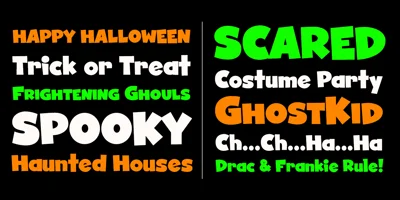
GhostKid AOE Font is perfect for spooky design projects including haunted children's attractions, Halloween family events, kid-friendly ghost tours, supernatural children's entertainment, spooky theme parks, horror-lite gaming interfaces, ghostly children's book illustrations, and playfully scary marketing campaigns. This eerie typeface works perfectly for family-friendly haunted houses, children's Halloween costumes, spooky children's theater productions, ghost-themed educational programs, and projects that celebrate the fun side of supernatural entertainment for younger audiences.
What makes GhostKid AOE Font exciting is its playfully spooky character that perfectly captures the essence of child-friendly horror and gentle supernatural fun. The font features ghostly letterforms with kid-appropriate styling that reflects the balance between spooky excitement and child-safe entertainment. Its playful design elements embody the spirit of family-friendly scares and innocent supernatural wonder, making it perfect for projects that need to convey fun, excitement, and connection to kid-friendly horror culture. The carefully crafted spooky details create an atmosphere of playful authenticity and child-safe supernatural entertainment.
GhostKid AOE Font comes in multiple family variations including playful, spooky, kid-friendly, and supernatural styles. Each weight maintains the distinctive ghost character while offering different levels of spooky intensity and child-appropriate presence. The font family includes ghost alternates, spooky ligatures, and kid-friendly variations that provide designers with comprehensive options for creating truly entertaining and authentically child-safe typographic compositions that celebrate family-friendly horror.
Whether you're designing children's entertainment branding, creating family-friendly marketing materials, or developing spooky promotional graphics, GhostKid AOE Font provides the perfect typographic foundation for projects that celebrate kid-friendly excellence and supernatural sophistication. This remarkable typeface transforms ordinary text into compelling expressions of playful wisdom and spooky energy. Download this ghostly font today and haunt your design projects with the child-friendly authenticity and supernatural charm that captures the essential spirit of family-friendly horror and playful supernatural entertainment.